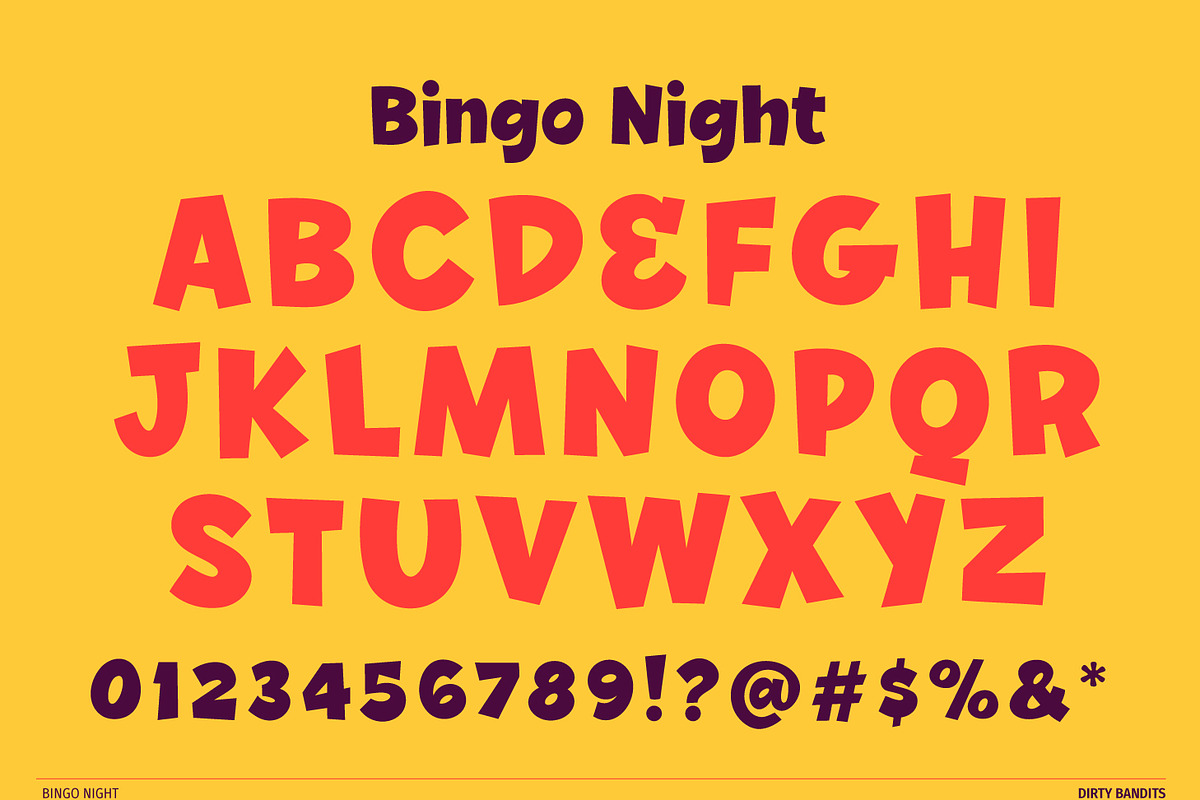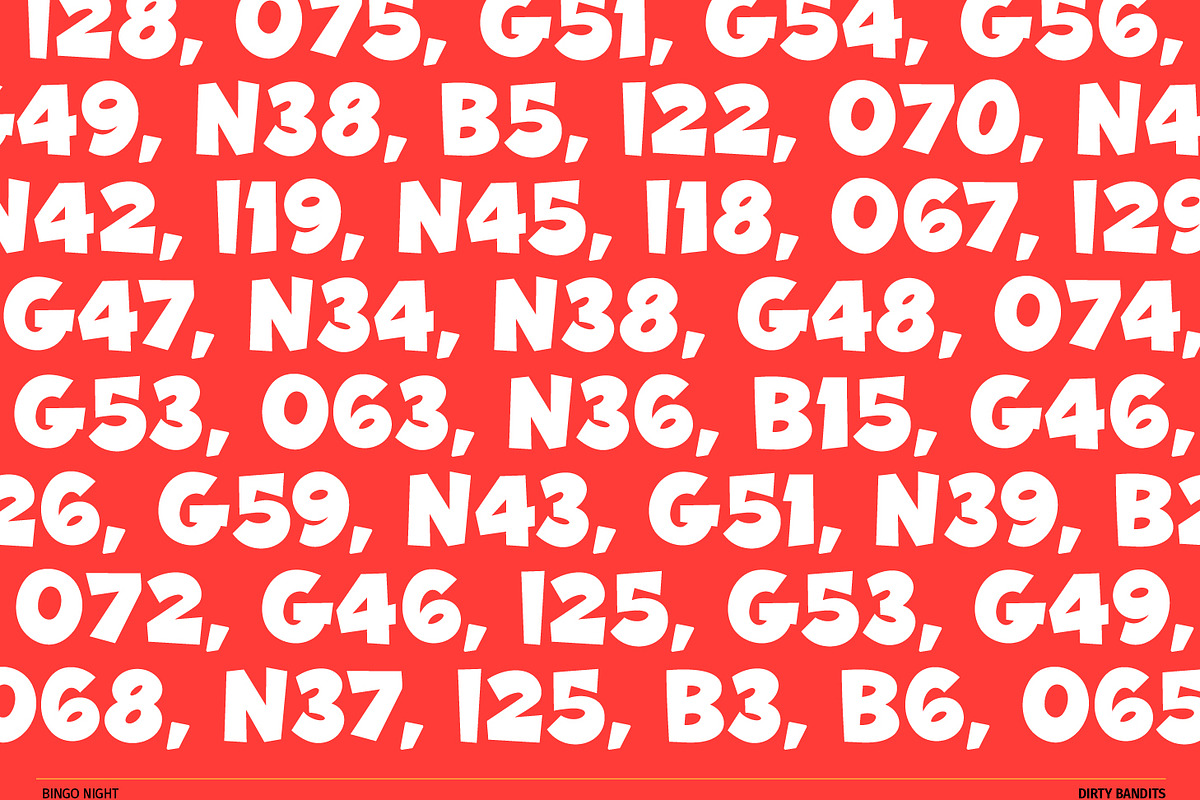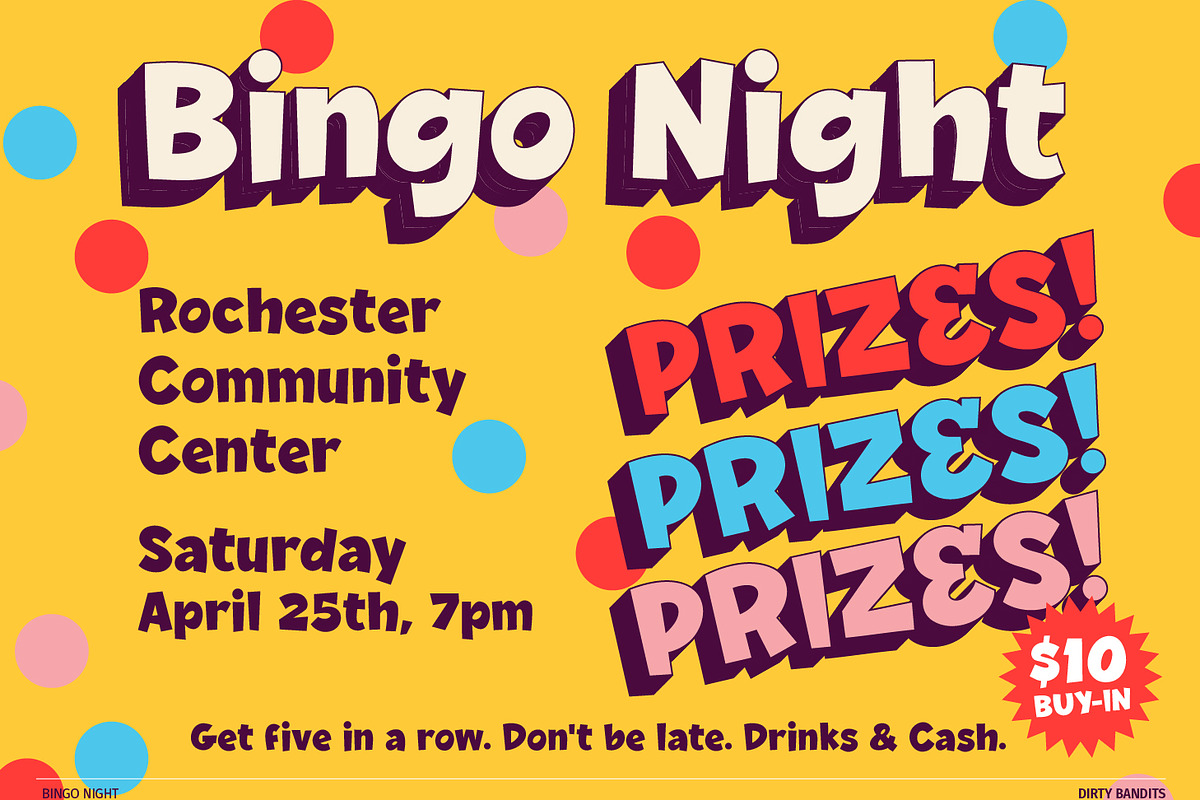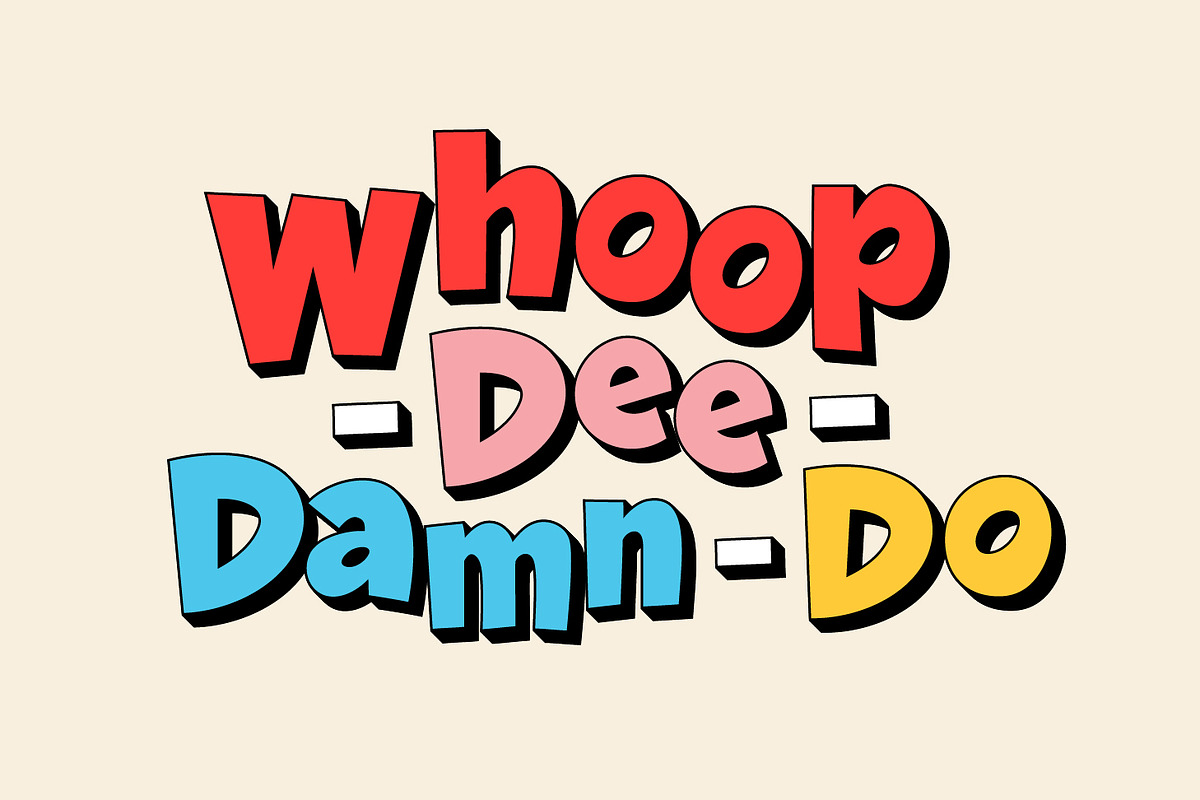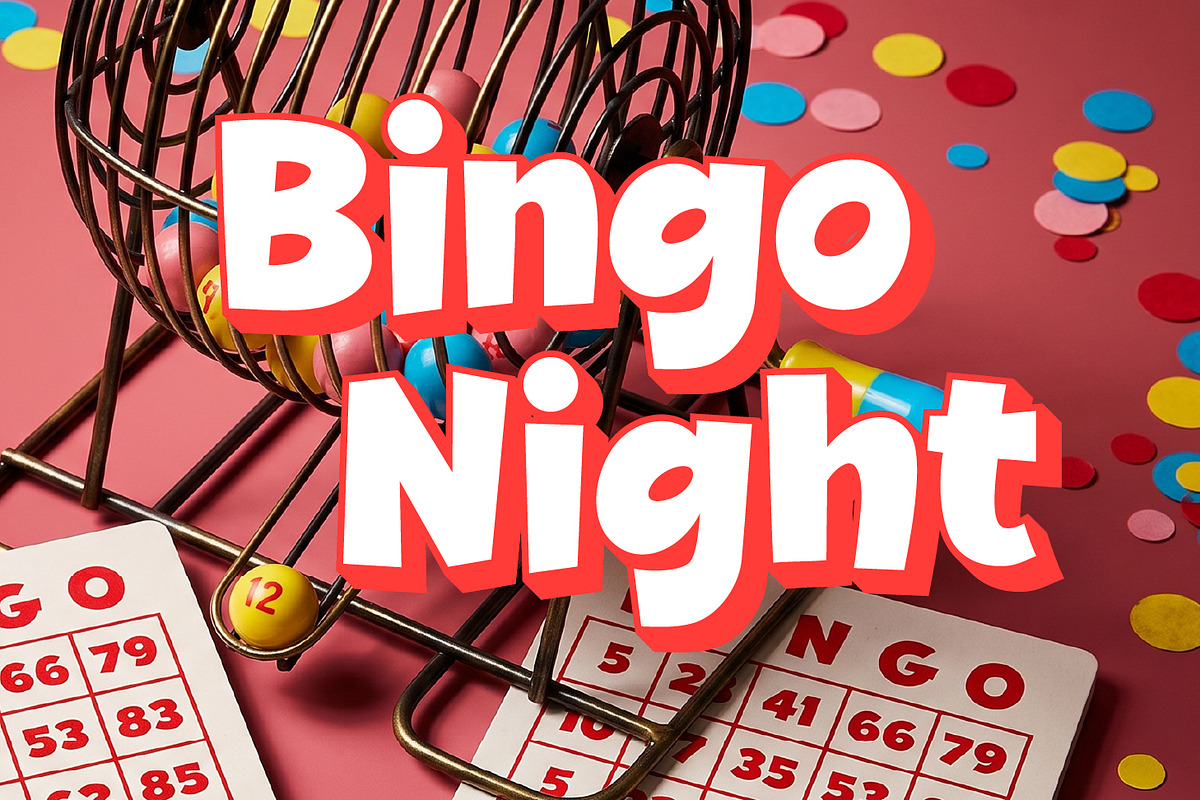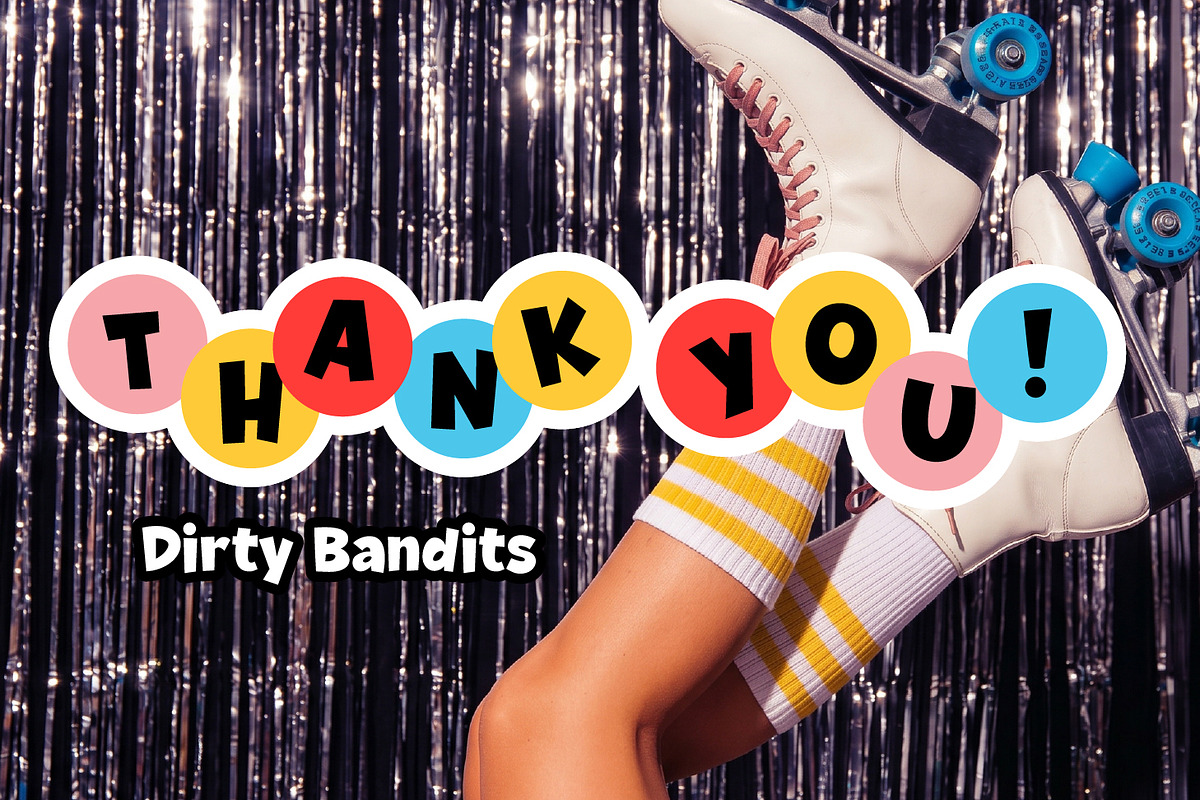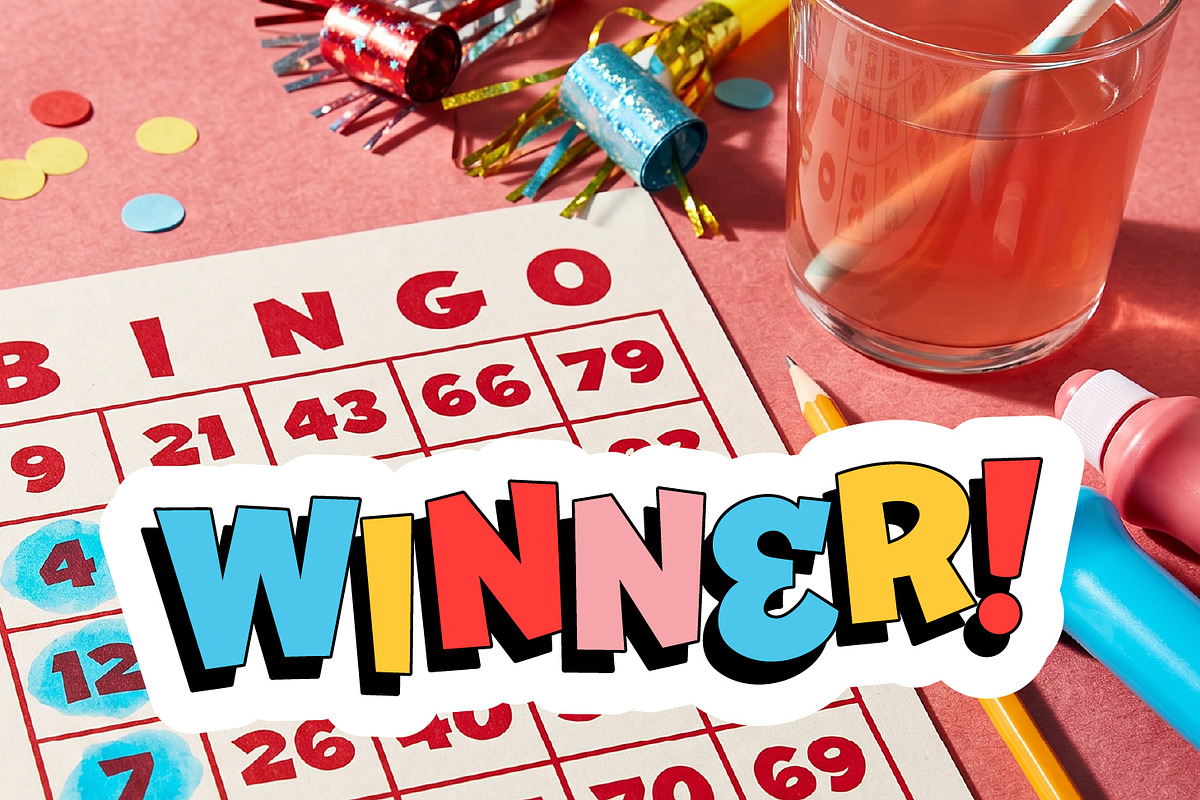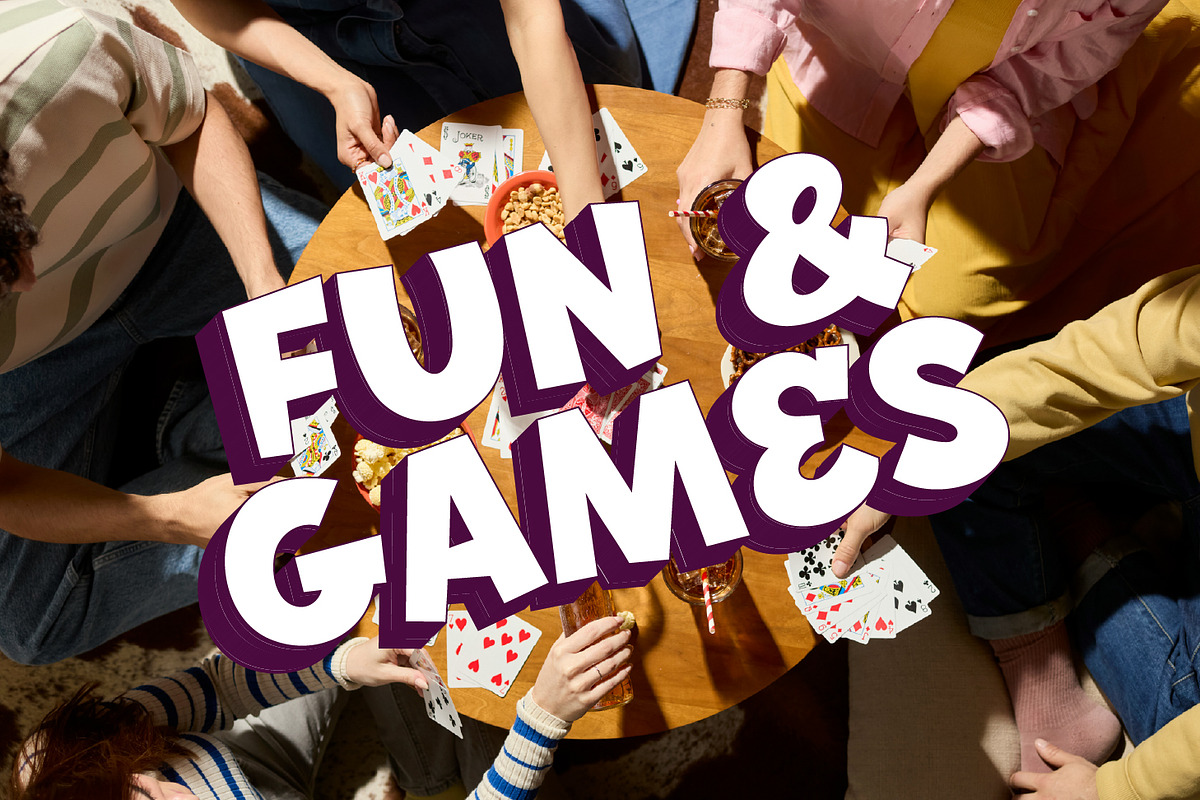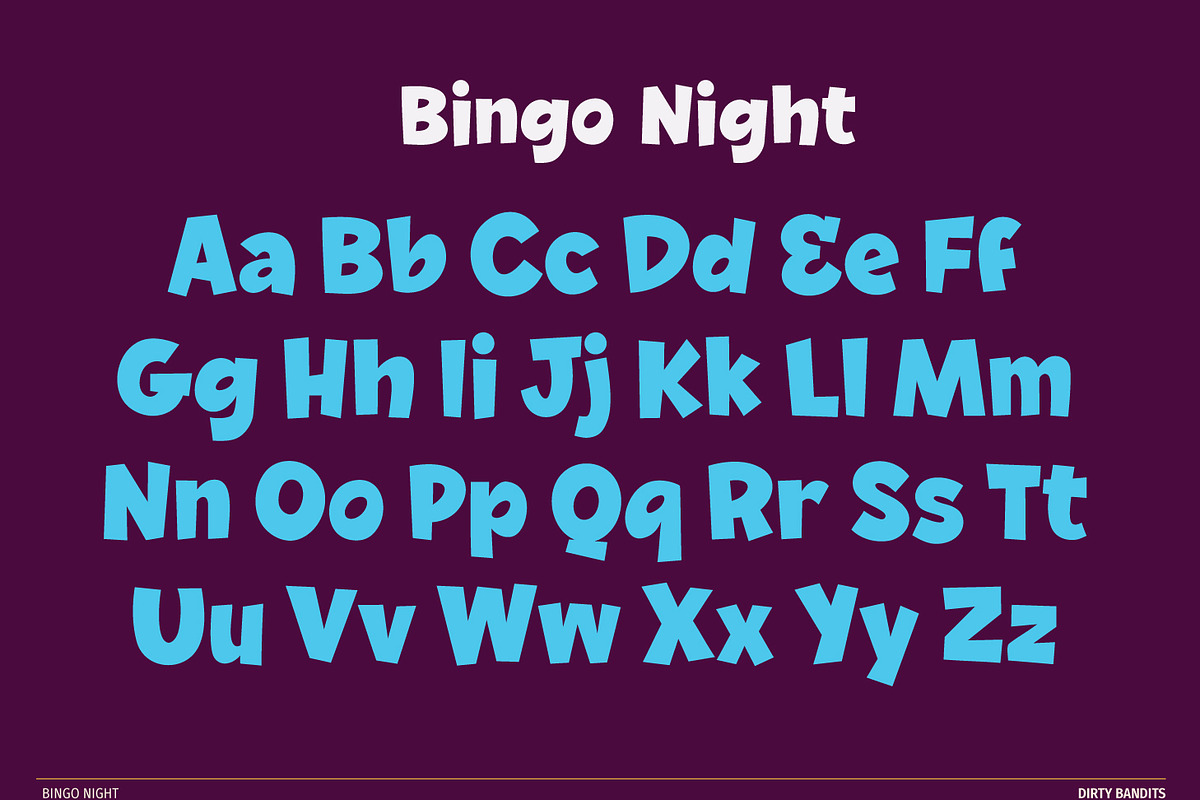
Bingo Night
Bingo Night is a display font that celebrates the joy of imperfection. Inspired by hand-painted carnival signs and vintage type, it features a heavy, rhythmic weight and a "wonky" geometry that gives your text an instant sense of history and personality.
It’s bold, it’s loud, and it doesn't care about being "perfect"—which is exactly why it stands out.
Irregular Rhythm: Each character is designed with a unique baseline and slant, creating a lively, dancing effect when typed.
High Visual Weight: Built for headlines that need to be felt as much as they are read.
Nostalgic Soul: Effortlessly fits into mid-century, Americana, or retro-modern aesthetics